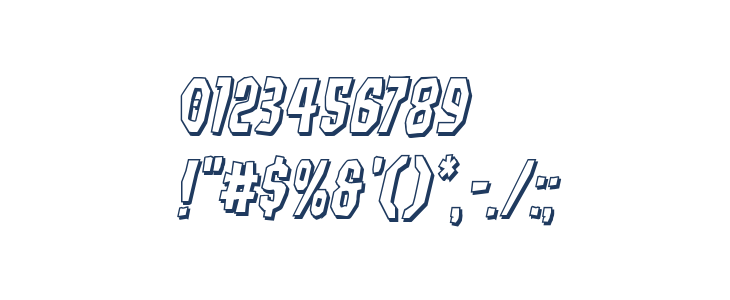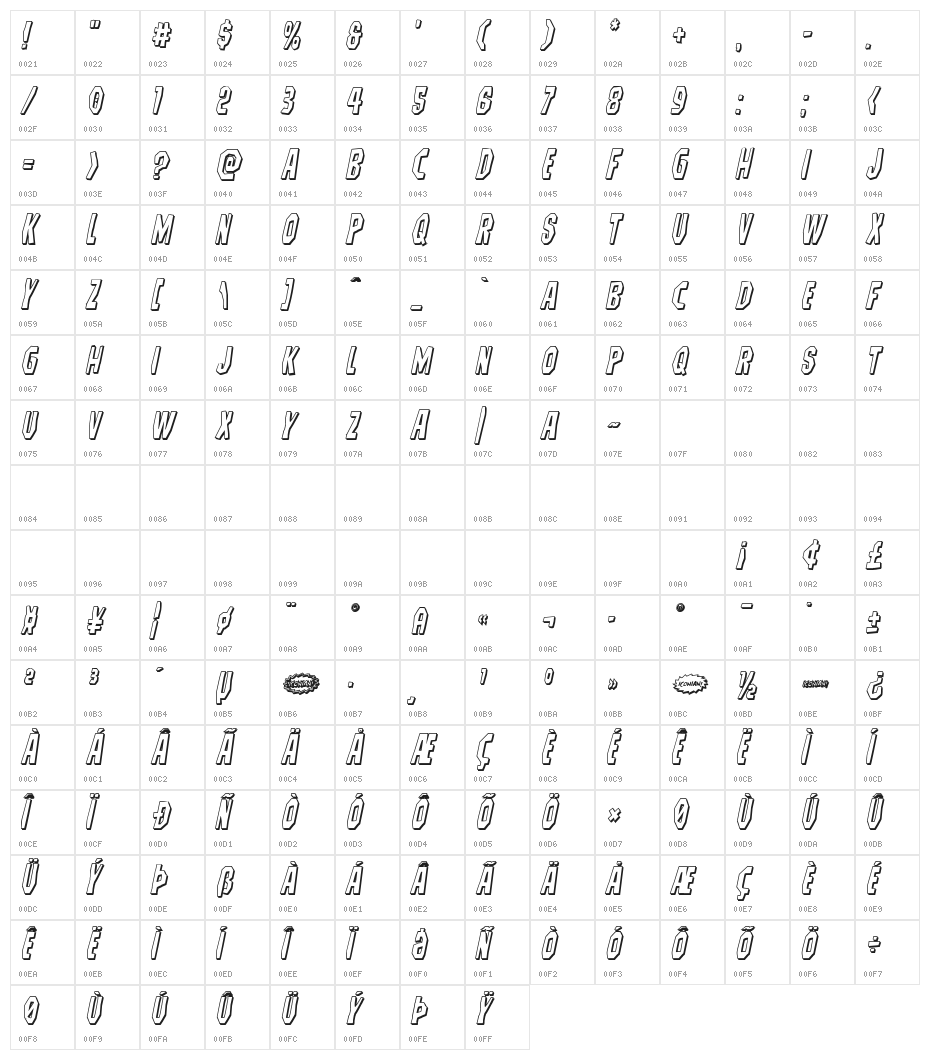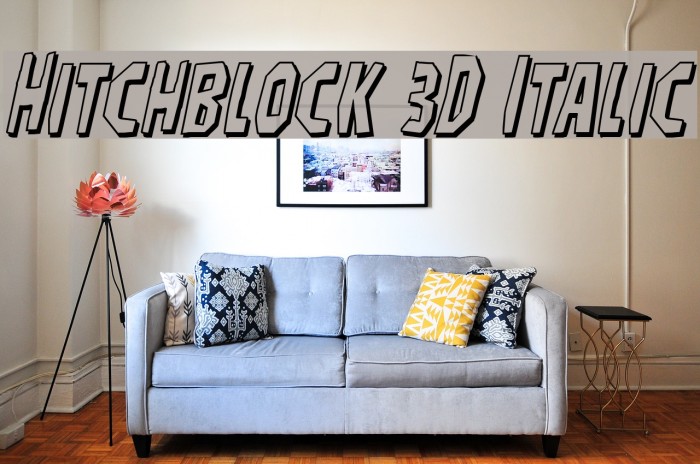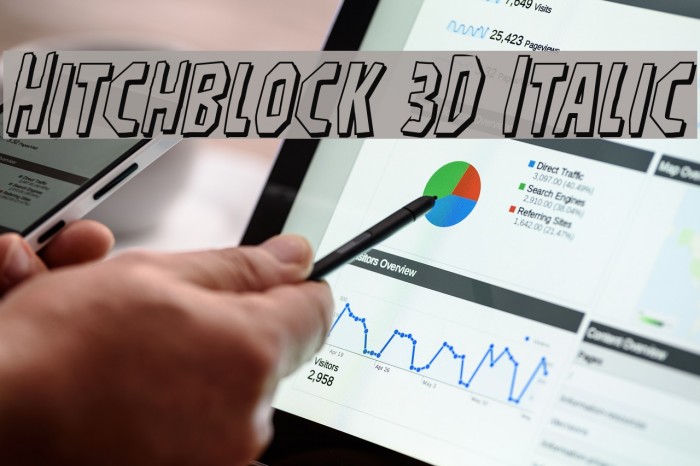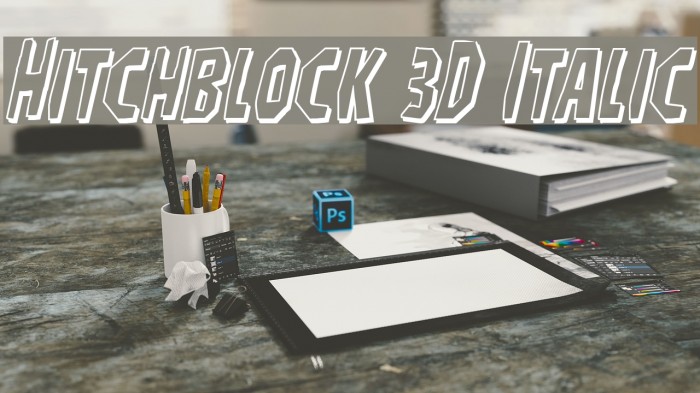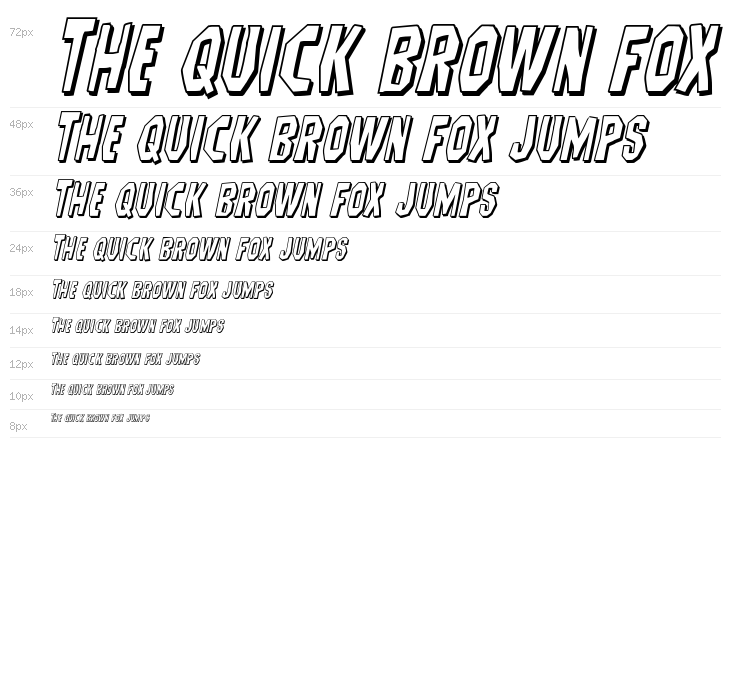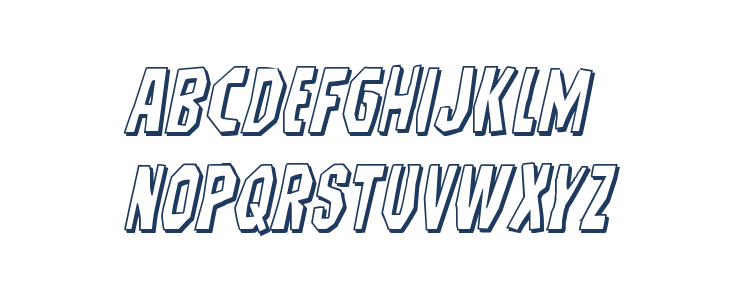
Hitchblock 3D Italic Font
Hitchblock 3D Italic Description
This font features a bold, three-dimensional design with an italicized slant, giving it a dynamic and impactful appearance. The characters are outlined, creating a sense of depth and movement. The uppercase letters are prominent and angular, while the lowercase letters maintain a consistent style, enhancing readability. Numbers and special characters are designed with the same bold and italicized characteristics, ensuring uniformity across all elements. The font's unique 3D effect makes it stand out, making it ideal for eye-catching designs.
| Proposed Projects | Ideal for posters, logos, video game graphics, and any project requiring a bold, attention-grabbing font. |